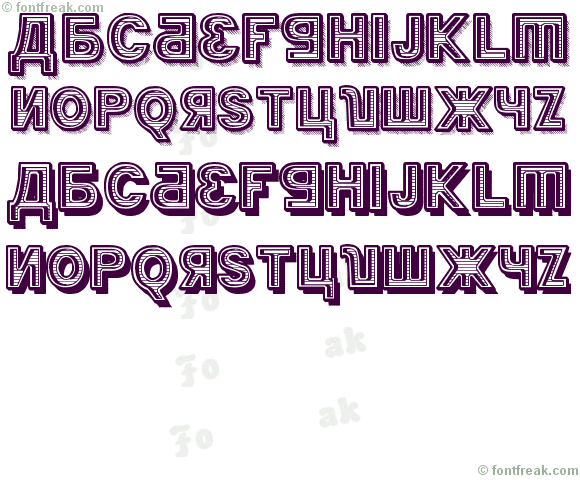
Kremlin Minister Bold
About Kremlin Minister Bold
Kremlin Minister Bold, created by Bolt Cutter, is a striking display font that falls into the category of bold sans-serif typefaces. With its distinctive 3D appearance and strong geometric forms, this font commands attention and makes a powerful statement in any design context. The stroke weight is substantial, providing excellent visibility, while the contrast between the thick lines and the negative space adds to its overall impact. The spacing is generous, allowing for easy readability even at larger sizes, making it an ideal choice for headlines and other standout text.
This font is particularly versatile and can be effectively used in a variety of applications. It works beautifully for movie posters, where its boldness can evoke excitement and drama. Restaurant menus can also benefit from its modern aesthetic, drawing customers' eyes to featured dishes. Additionally, Kremlin Minister Bold is perfect for promotional materials, such as flyers and banners, where grabbing attention is essential. Graphic designers and small business owners will find this font invaluable for branding projects, ensuring differentiation in a crowded marketplace.
Content creators looking to enhance their visuals will also appreciate the unique character of this typeface. The distinctiveness of Kremlin Minister Bold makes it suitable for digital and print media alike, providing a fresh alternative to more conventional fonts.
The standout feature of the Kremlin Minister Bold font is its ability to blend modern design with a hint of artistic flair, making it a memorable choice for any project. With a Kremlin Minister Bold font free download available, designers can easily incorporate this dynamic typeface into their work, enhancing their creative expressions without the burden of licensing fees. This font truly exemplifies the balance between functionality and visual appeal, making it a must-have in any designer's toolkit.